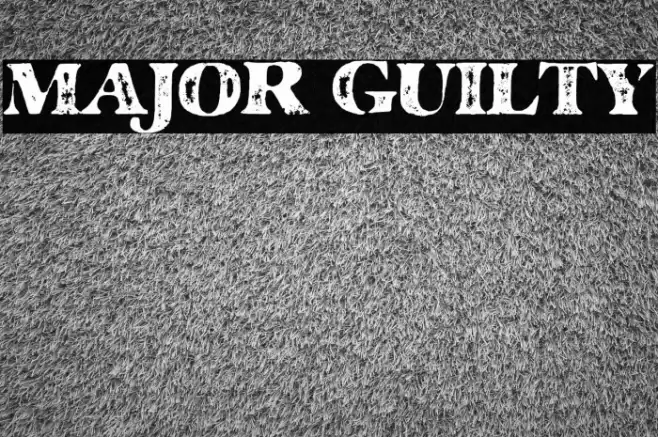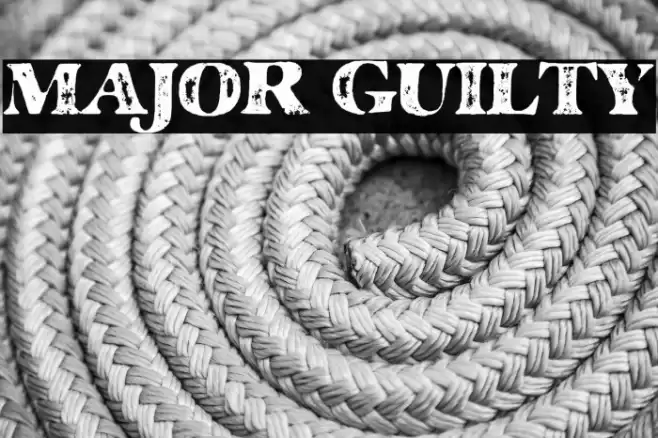
MAJOR GUILTY Font
MAJOR GUILTY Description
This font exhibits a bold, distressed style with a vintage appeal. The characters are heavily textured, giving them a worn, rugged appearance. The uppercase letters are prominent and impactful, making them suitable for attention-grabbing designs. The font's unique character is enhanced by its irregular edges and varying stroke thickness, which contribute to its dynamic and edgy look. This style is reminiscent of old, weathered signage or posters, adding a sense of history and character to any project.
A bold, distressed font with a vintage, rugged appearance from Uncategorized fonts.
- Overall Style: Vintage